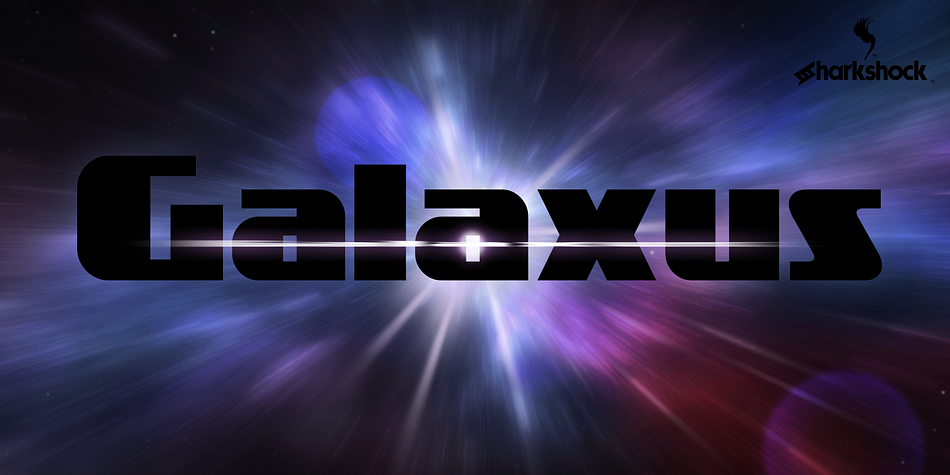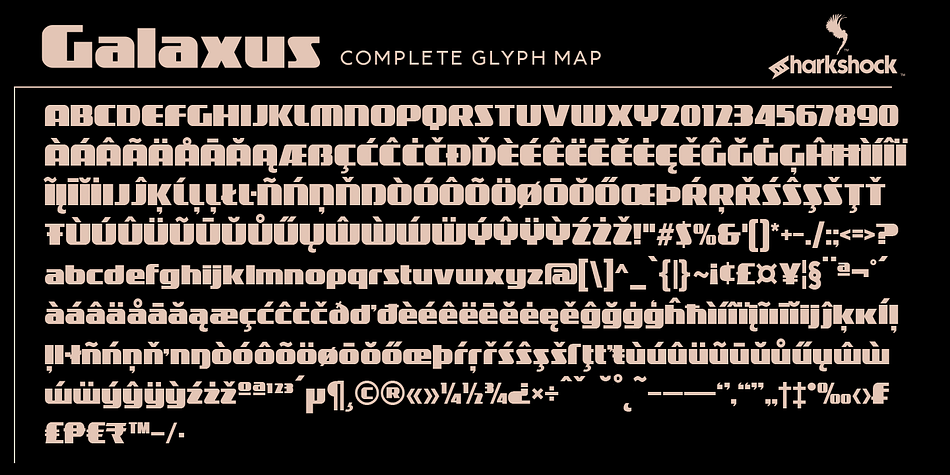
Designed by Dennis Ludlow, Galaxus is a display sans and sans serif font family. This typeface has four styles and was published by Sharkshock.
Galaxus is an edgy display font defined by its tight spacing, sleekness, and short descenders. Curvature is limited throughout the character set with straightened lines dominating the interior. Traditional diagonals in capitals like M, N, W and Y are given the straight treatment to maintain vertical emphasis. This styling along with the contrast between thick and thin make for a unique look. Galaxus would work well in a logo, on sports apparel, or in a video game.
This family is equipped with Basic Latin, Extended Latin, diacritics, punctuation, kerning, and comes in 4 versions.